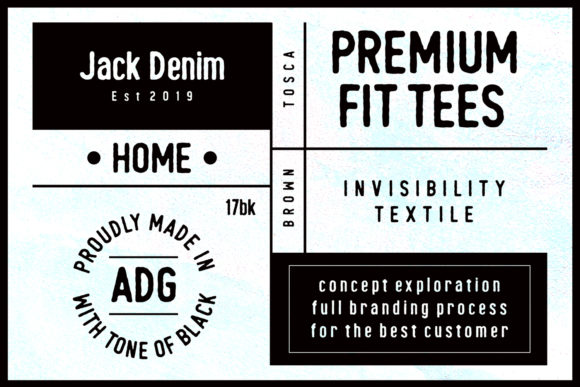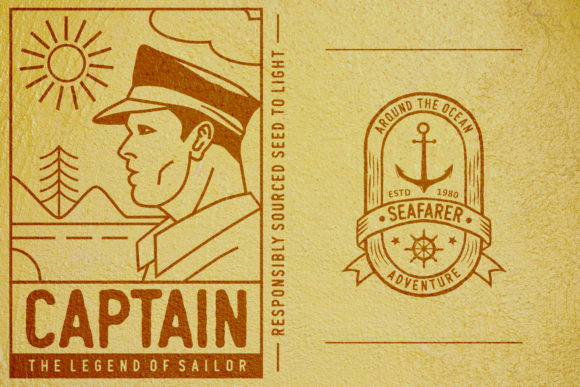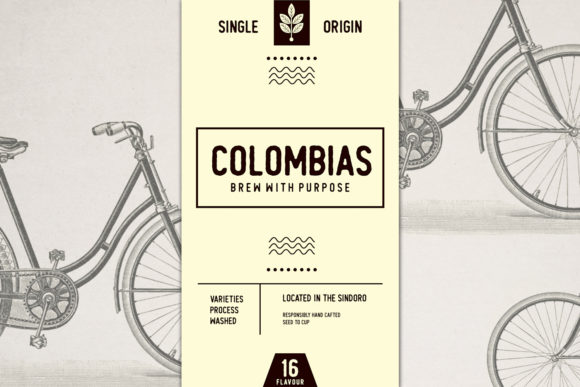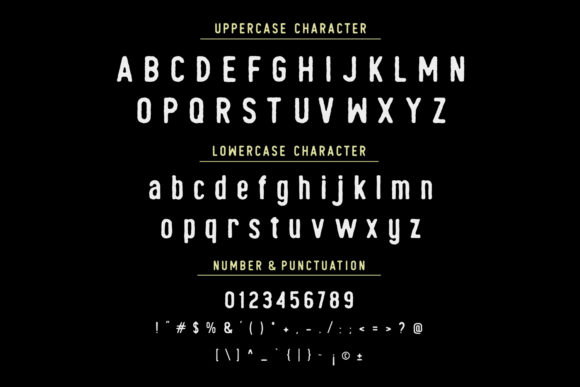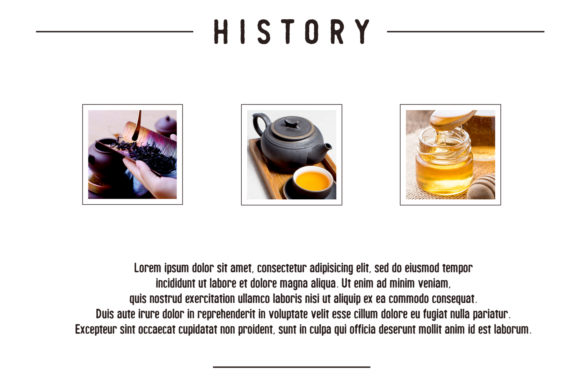
Introduction to Mohica Font
Mohica is an incredibly strong, boldly rounded and elegant sans serif font with a cool twist.
Get inspired by its unique charm .
Key Features of Mohica Font